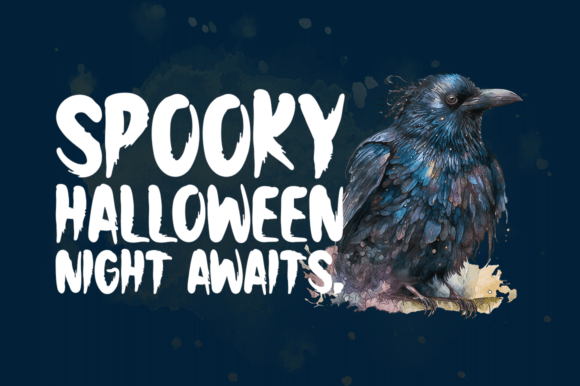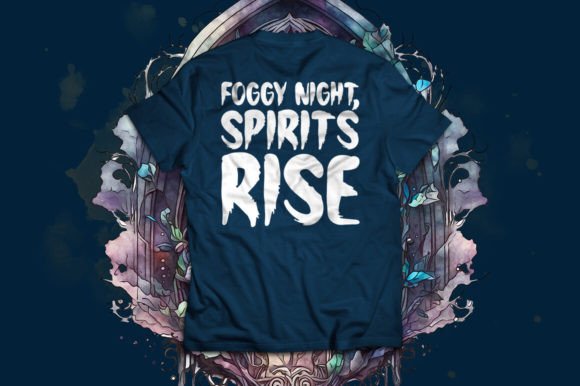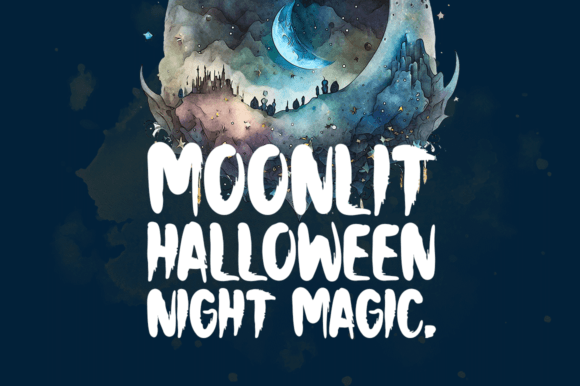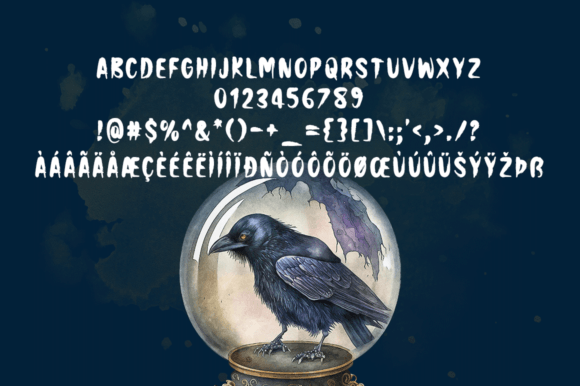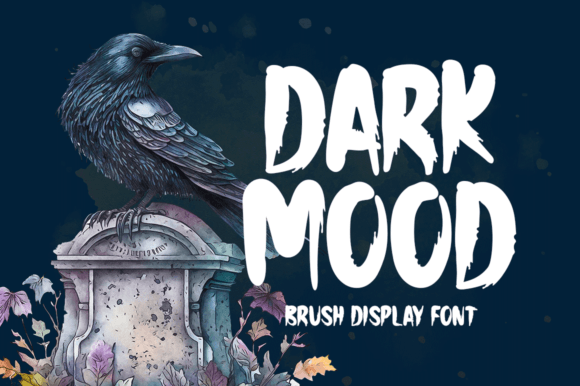
Unleash the Mystery: Exploring the Dark Mood Font
Are you tired of using the same old fonts for your designs? Look no further! Introducing the Dark Mood Font, a unique and interesting display font that’s sure to add a touch of mystery and intrigue to your creations. A little bit quirky, this font looks incredibly adept on a wide variety of contexts, making it a must-have for designers and crafters alike.
The Personality of Dark Mood Font
The Dark Mood Font boasts a distinct personality that’s hard to ignore. Its quirky and unconventional design makes it perfect for projects that require a bit of an edge. Whether you’re working on a branding campaign, a packaging design, or a digital project, this font is sure to make a statement. Its versatility allows it to seamlessly adapt to different contexts, from bold and dramatic to subtle and sophisticated.
Key Features of Dark Mood Font
- Unique and Quirky Design: The Dark Mood Font features a one-of-a-kind design that’s sure to grab attention.
- Display Font: This font is specifically designed for display purposes, making it perfect for headlines, titles, and other prominent text elements.
- Versatile: The Dark Mood Font can be used in a wide range of contexts, from digital projects to print materials.
- Easy to Read: Despite its quirky design, the font remains easy to read, even at smaller sizes.
Use Cases for Dark Mood Font
The Dark Mood Font is an incredibly versatile font that can be used in a variety of projects. Here are some use cases to get you started:
- Branding and Logo Design: Use the Dark Mood Font to create a bold and memorable logo that sets your brand apart.
- Packaging Design: Add a touch of mystery and intrigue to your packaging designs with this unique font.
- Digital Projects: Use the Dark Mood Font to create eye-catching headlines and titles for your digital projects, such as websites, social media graphics, and more.
- Advertising and Marketing: Make a statement with your advertising and marketing materials using this bold and attention-grabbing font.
Tips for Using Dark Mood Font
To get the most out of the Dark Mood Font, here are some tips to keep in mind:
- Experiment with Different Sizes: The Dark Mood Font looks great at a variety of sizes, so don’t be afraid to experiment and find the perfect size for your project.
- Pair with Complementary Fonts: Pair the Dark Mood Font with complementary fonts to create a visually appealing contrast.
- Use it Sparingly: While the Dark Mood Font is attention-grabbing, it can be overwhelming if used too much. Use it sparingly to create maximum impact.
The Dark Mood Font is a unique and interesting display font that’s sure to add a touch of mystery and intrigue to your designs. Its quirky and unconventional design makes it perfect for projects that require a bit of an edge. With its versatility, ease of use, and attention-grabbing design, this font is a must-have for designers and crafters alike. So why settle for the same old fonts when you can unleash the mystery of the Dark Mood Font?